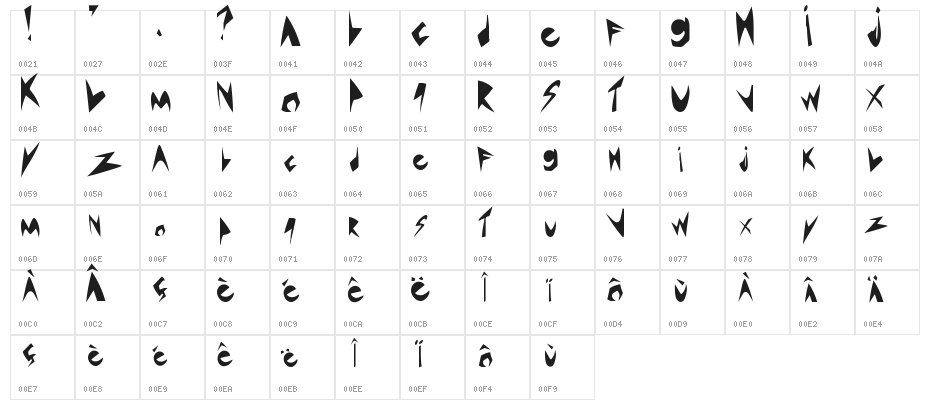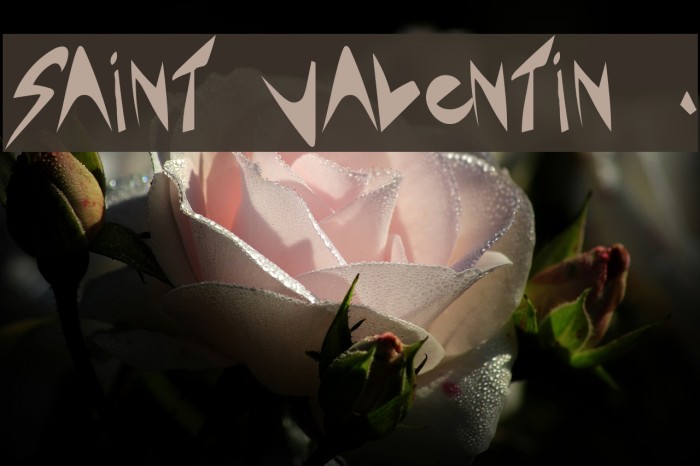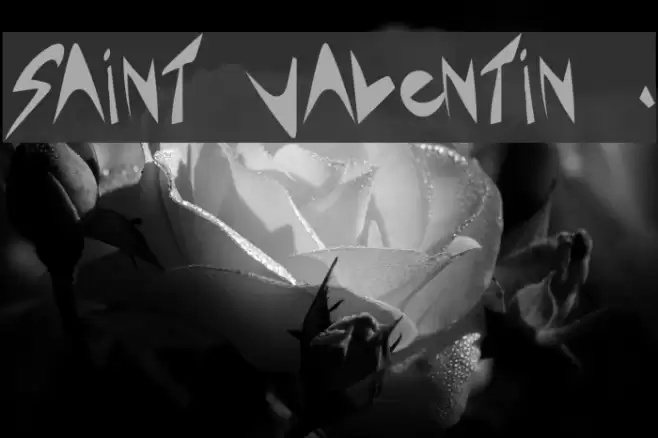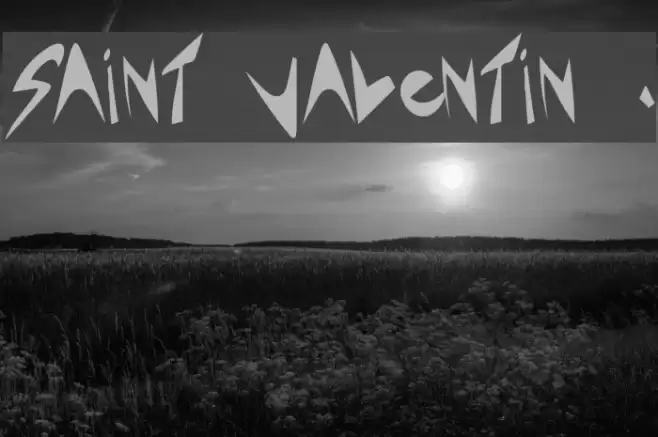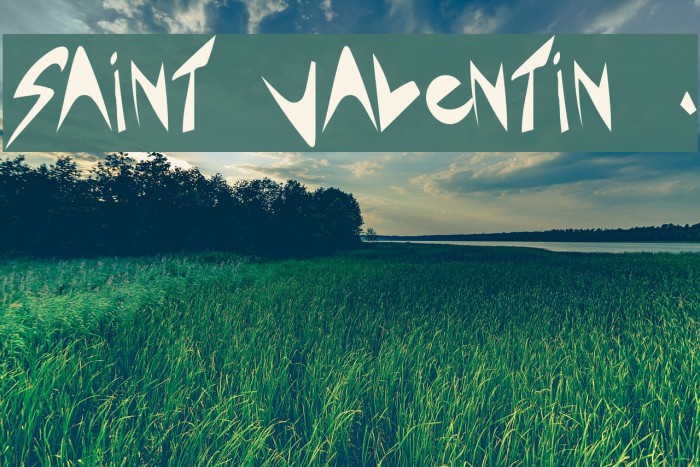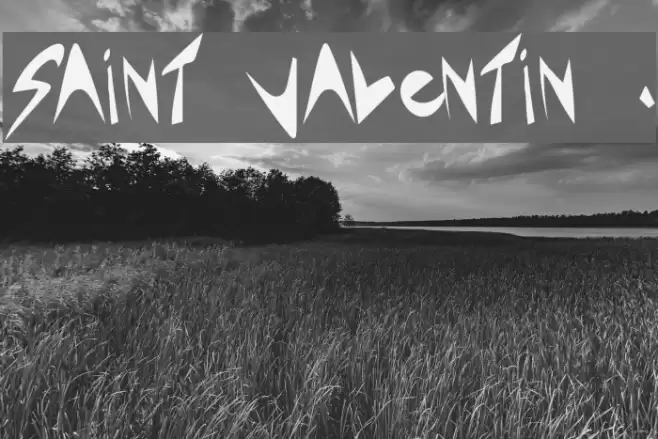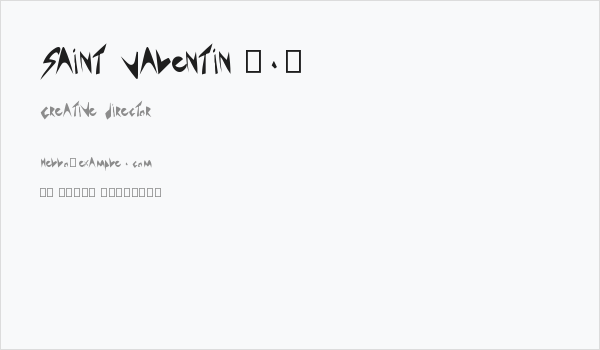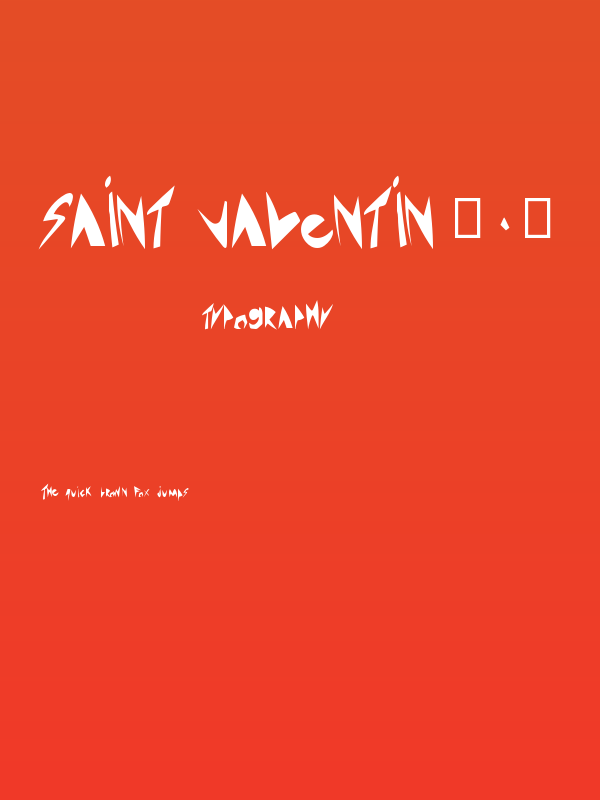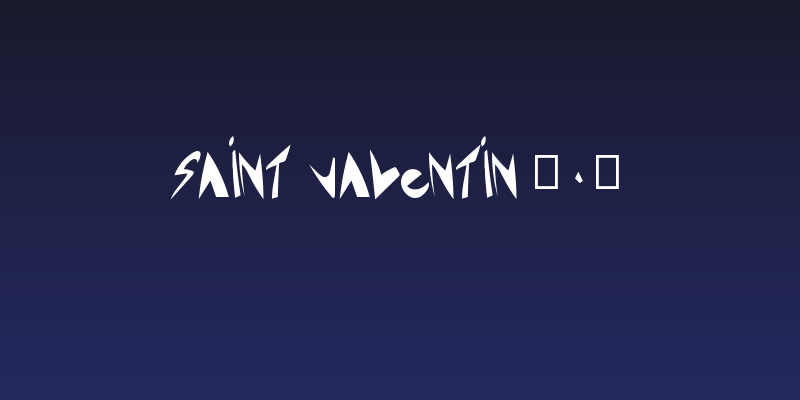
Saint Valentin 1.3 Font
Saint Valentin 1.3 Description
This font features a bold and dynamic style with sharp, angular lines and a distinct geometric flair. The characters are highly stylized, with exaggerated points and edges that give it a unique, edgy appearance. The uppercase and lowercase letters maintain a consistent design ethos, emphasizing a sense of movement and energy. The numerals and special characters follow the same design principles, ensuring a cohesive look across all glyphs. This font is ideal for projects that require a strong visual impact and a modern, unconventional aesthetic.
| Proposed Projects | Ideal for music album covers, edgy branding, posters, and modern art projects. |